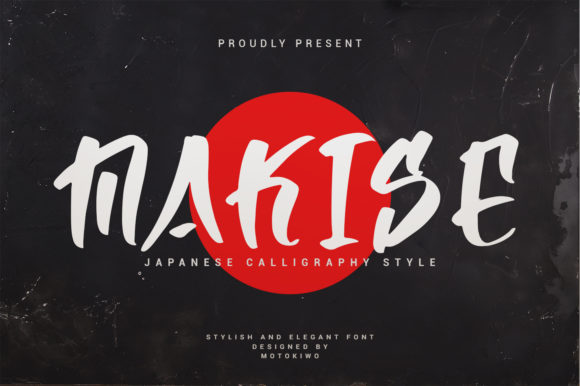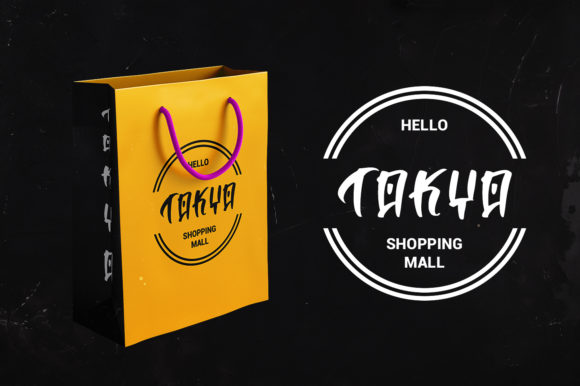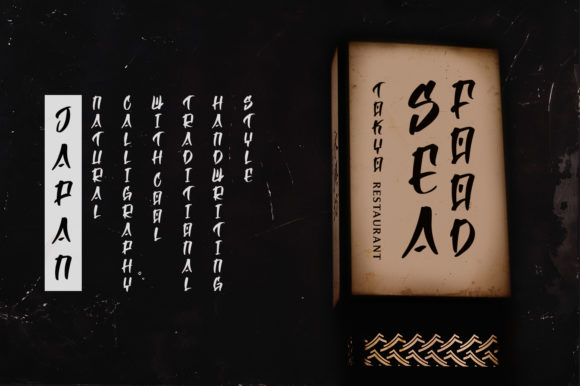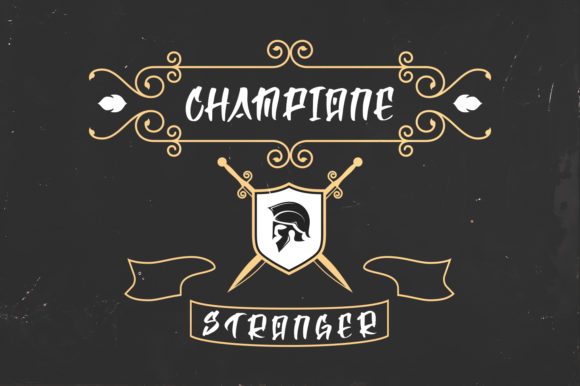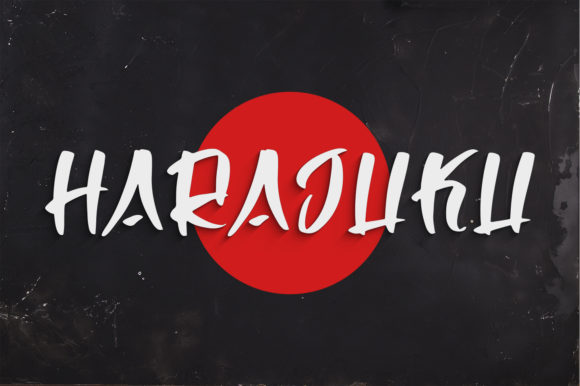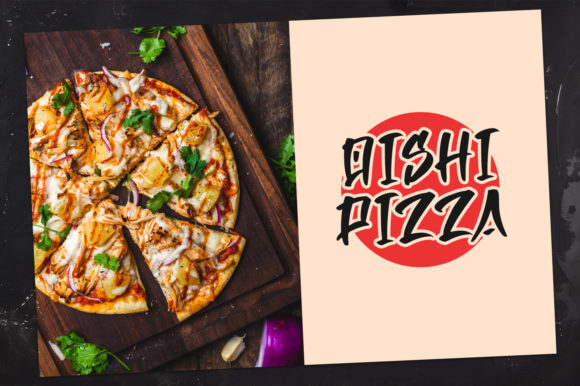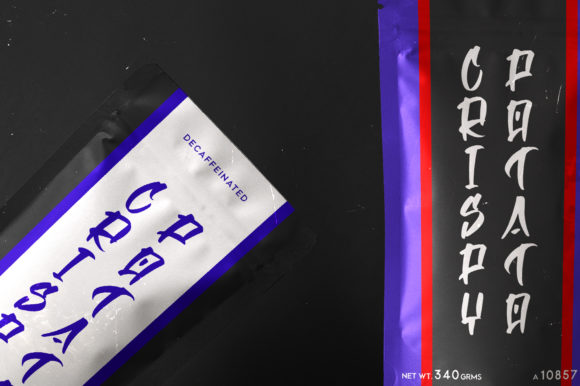
Makise Font
About Makise Font
Makise is a powerful and strong script with a dynamic approach to lettering. Its unique letters are reminiscent of traditional Chinese sign painting.